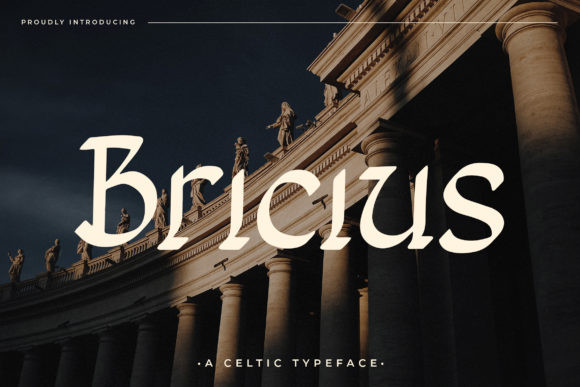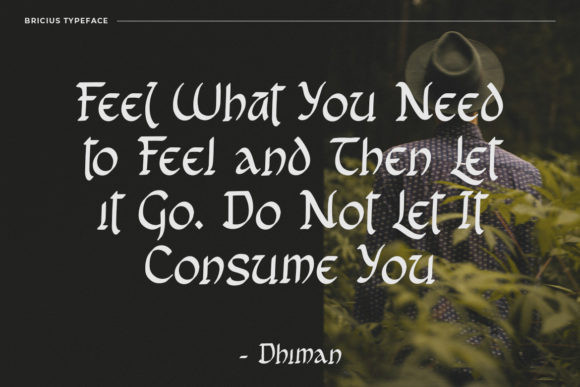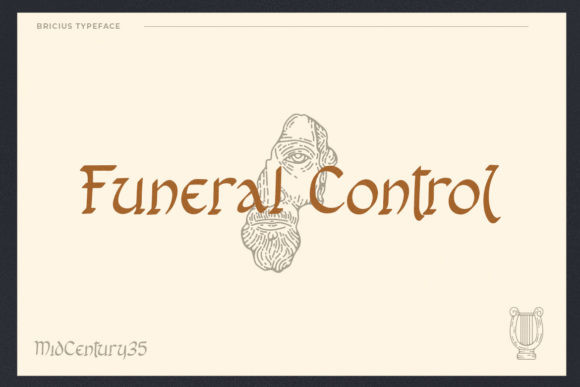
Bricius Font
Bricius is a unique and whimsical display font. No matter the topic, this font will be an incredibly asset to your fonts’ library, as it has the potential to elevate any creation.